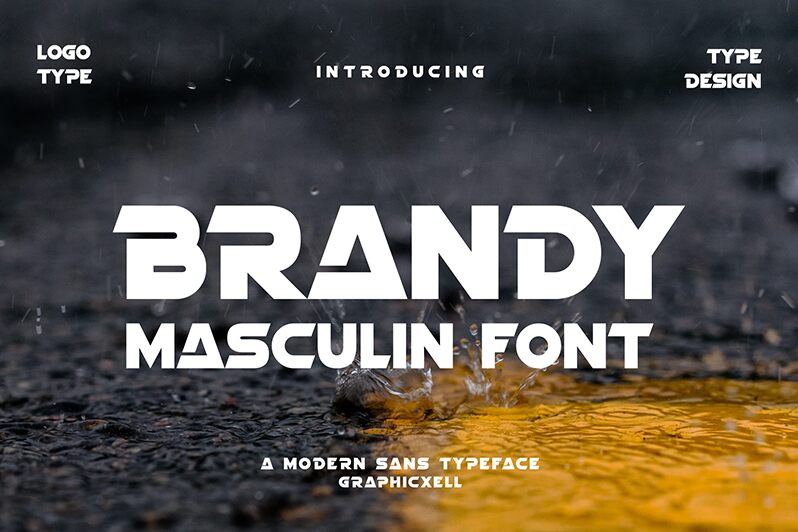
Brandy
Brandy, a captivating display font crafted by the talented team at Graphicxell, exudes a futuristic allure that commands attention. With its bold, geometric forms and striking letterforms, this font emanates a sense of modernity and technological prowess.
The seamless integration of sharp edges and smooth curves creates a visually striking aesthetic, eliciting a sense of innovation and dynamism. Brandy's versatility shines through, making it a compelling choice for a wide range of design projects, from eye-catching headlines and bold branding to impactful digital interfaces and captivating print materials.